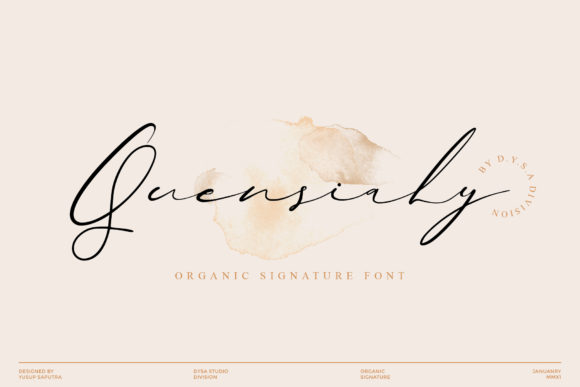
About Quensialy Font
Quensialy is an enchanting font that exudes elegance and charm in its handwritten style. With its captivating and versatile script, this font is perfect for a wide range of applications, from greeting cards to headlines, adding a touch of romance to your next project.
The enchanting handwritten style of Quensialy brings a sense of allure and beauty to your creations. Each letter carries the artistic and captivating touch of handwriting, making your work stand out with a touch of romantic flair and authenticity.
With Quensialy as your creative tool, you have the freedom to explore various design ideas. Whether you’re working on greeting cards, headlines, or any other project that calls for a romantic feel, this versatile script font effortlessly adapts to bring a sense of versatility and sophistication to your work.
Embrace the enchanting vibe of Quensialy and witness how it transforms your designs into captivating works of art. Its romantic essence adds a touch of authenticity, making your creations truly special and filled with a sense of allure and elegance.
Discover the joy of creating with Quensialy as your trusted companion. Let its handwritten appearance be the key to unlocking your creativity and infusing your work with a sense of romance and charm.
Whether you’re designing for personal projects or professional endeavors, Quensialy is the font that adds that extra touch of flair and romanticism to your creations. Embrace Quensialy confidently, and notice how it enhances the appeal and impact of your designs, making them truly enchanting and unforgettable.
Let Quensialy be the font that sparks your inspiration and brings an enchanting touch to your designs. Experience the magic of Quensialy and witness how it elevates your creative projects, making them truly beautiful and filled with a sense of timeless allure and romance.